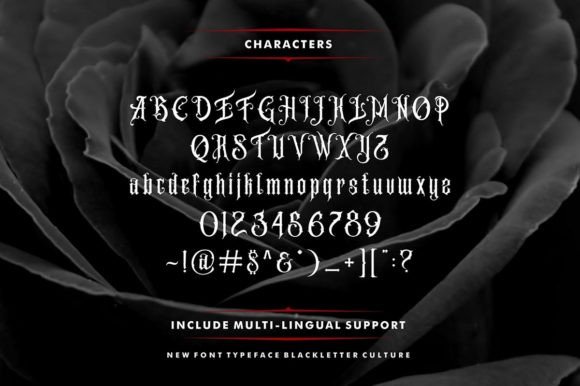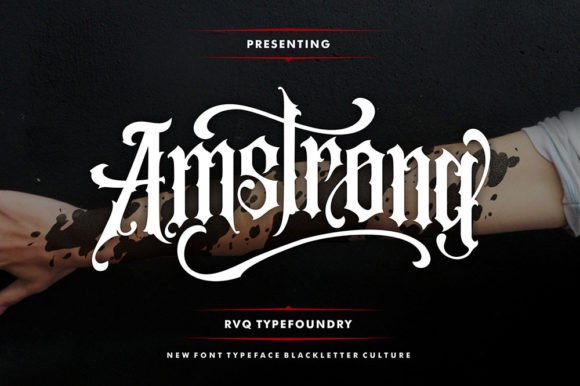
Amstrong Font: Vintage Blackletter for Unique Logo Design & Branding
About the Amstrong Font
Step up your design game with Amstrong Font, a font that exudes confidence and style. Amstrong is a new typeface with a classy, elegant, and vintage feel character set. To create a beautiful combination, just mix the uppercase and lowercase then mix them with the alternative glyphs. Add it confidently to your projects, and you will be speechless with the results. This font is PUA encoded which means you can access all glyphs and swashes effortlessly!
Amstrong’s elegant vintage feel makes it ideal for headlines, logos, and short text elements in branding projects, invitations, or packaging design where a touch of classic sophistication is desired. It excels in creating a sense of refined luxury. However, its ornate details make it less suitable for body text or UI elements requiring high readability.
Consider pairing Amstrong with a clean sans-serif like Helvetica Neue for a modern contrast, or a warmer serif like Garamond for a cohesive vintage aesthetic. A simple script font could add a touch of handwritten charm for specific applications like signature lines.
Amstrong projects an air of refined elegance and timeless quality. Its personality is sophisticated yet approachable, making it a versatile choice for brands aiming for a balance between classic appeal and contemporary relevance.
Amstrong Font Usage Examples
Amstrong Font Example